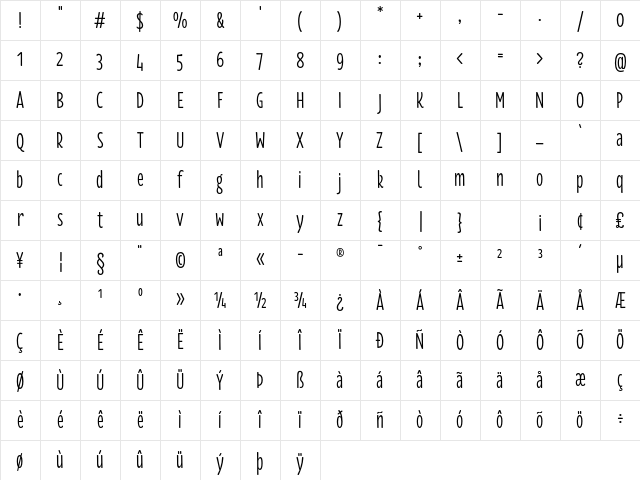
Florence Regular
Foundry: Sascha Timplan
Designer: Sascha Timplan
Design Context for Florence
Florence is a composed and adaptable typeface that performs quietly and consistently across a wide range of design contexts.